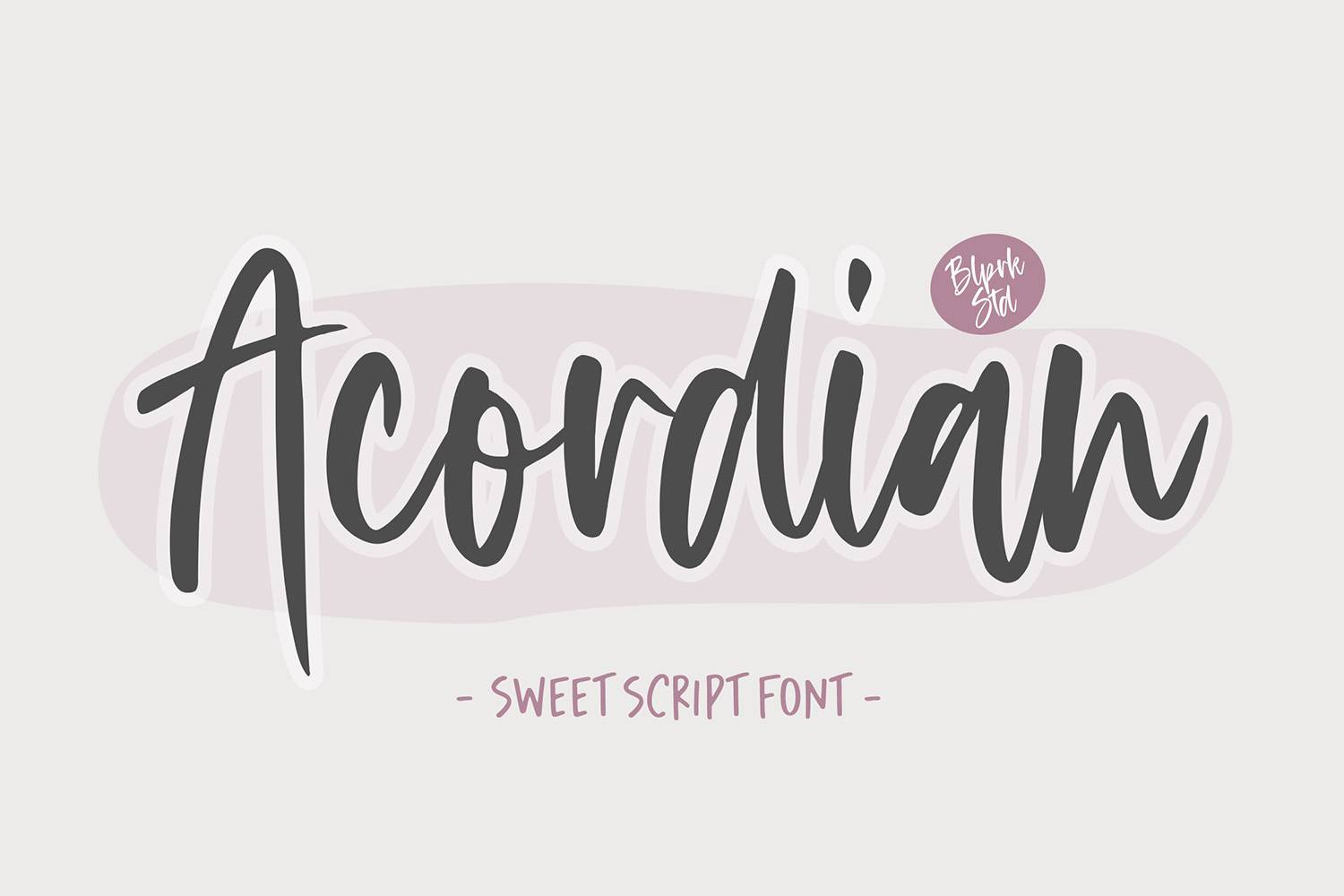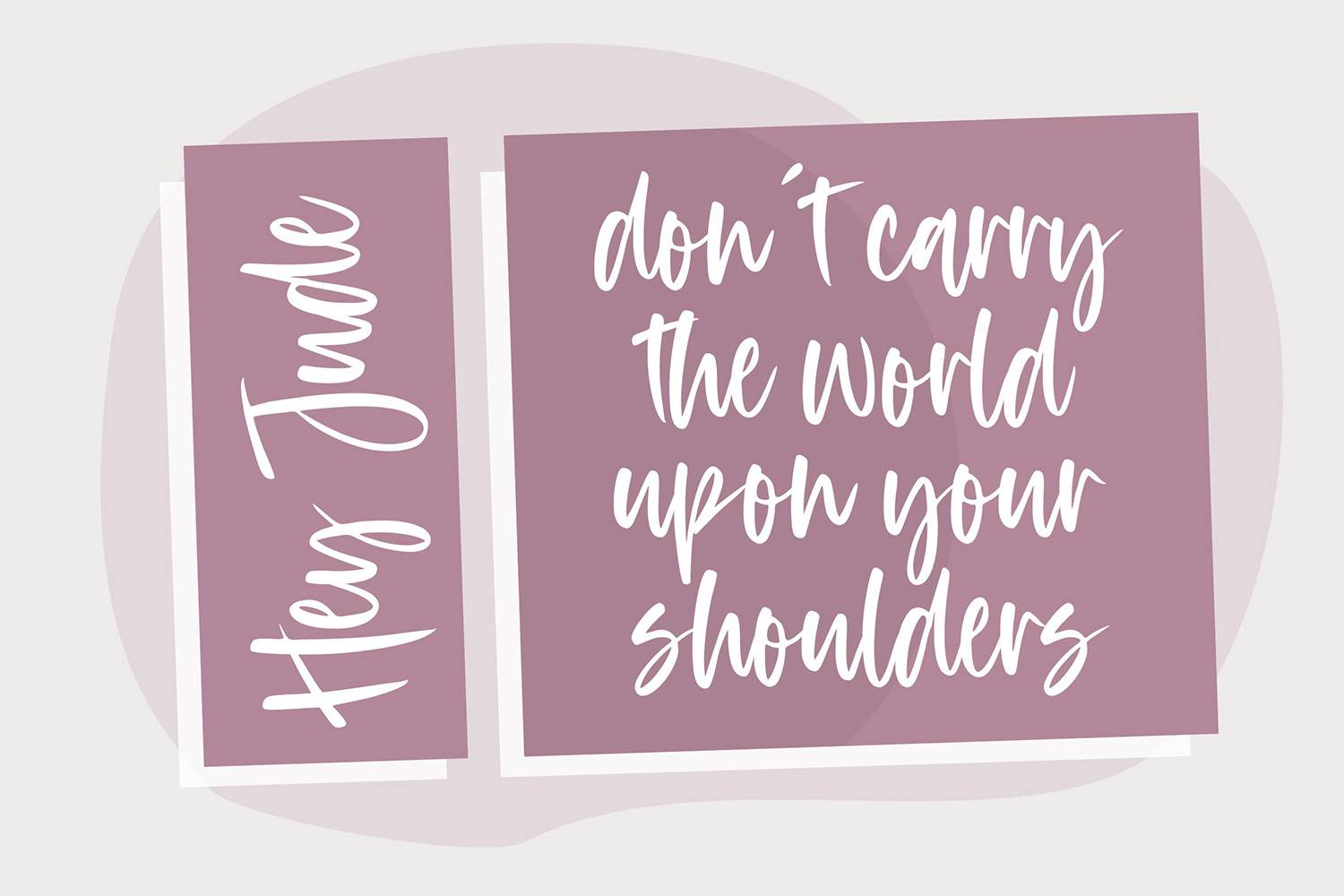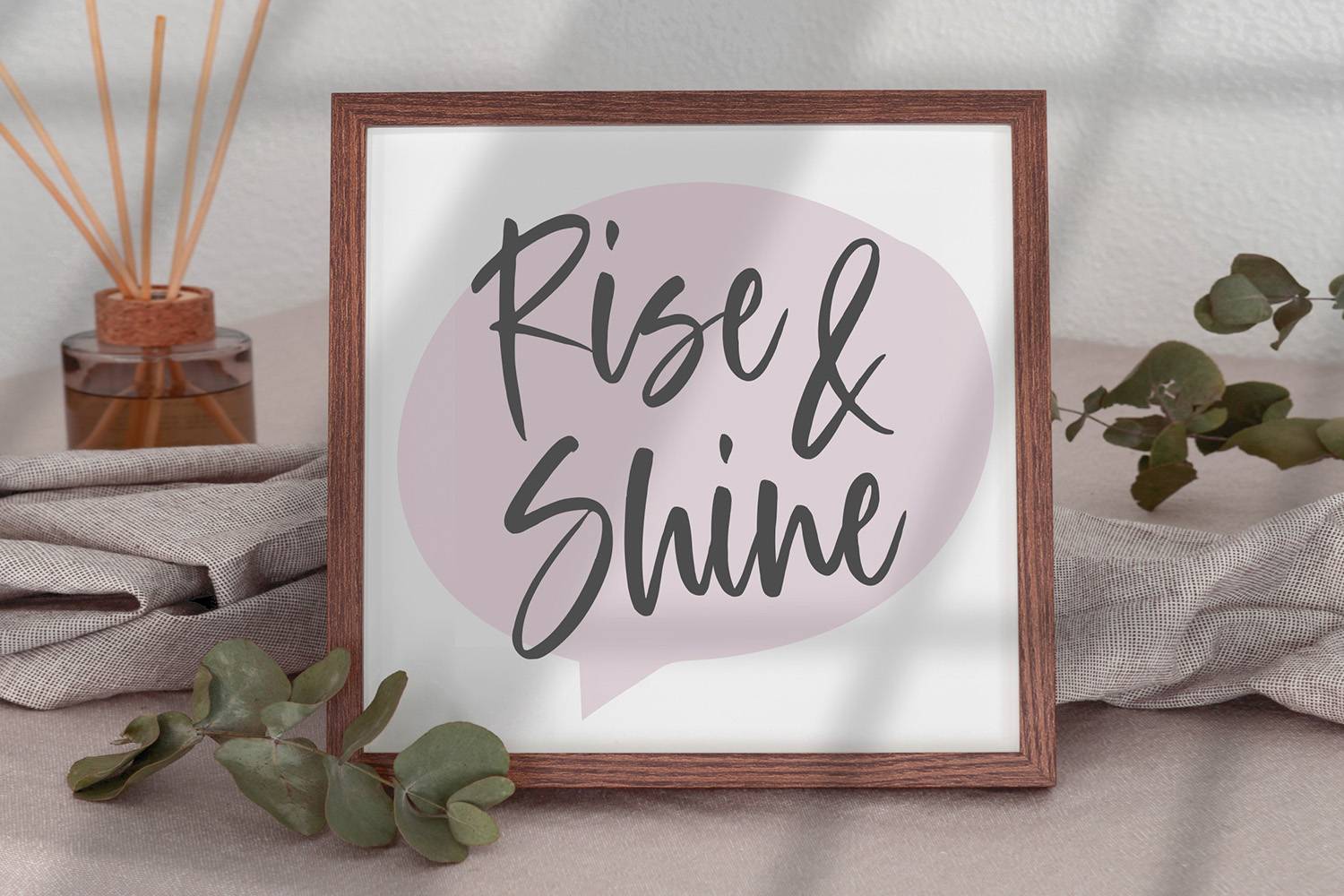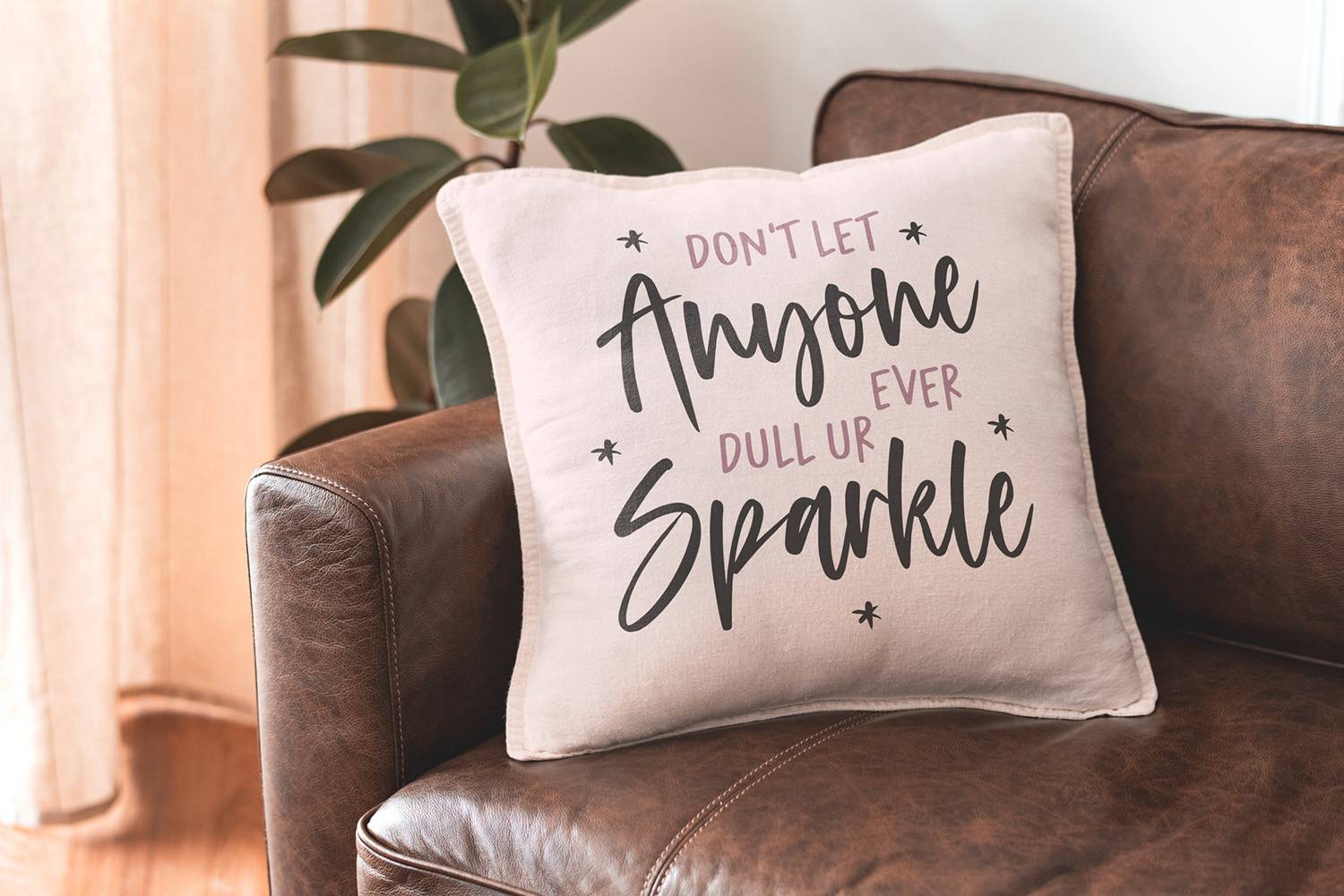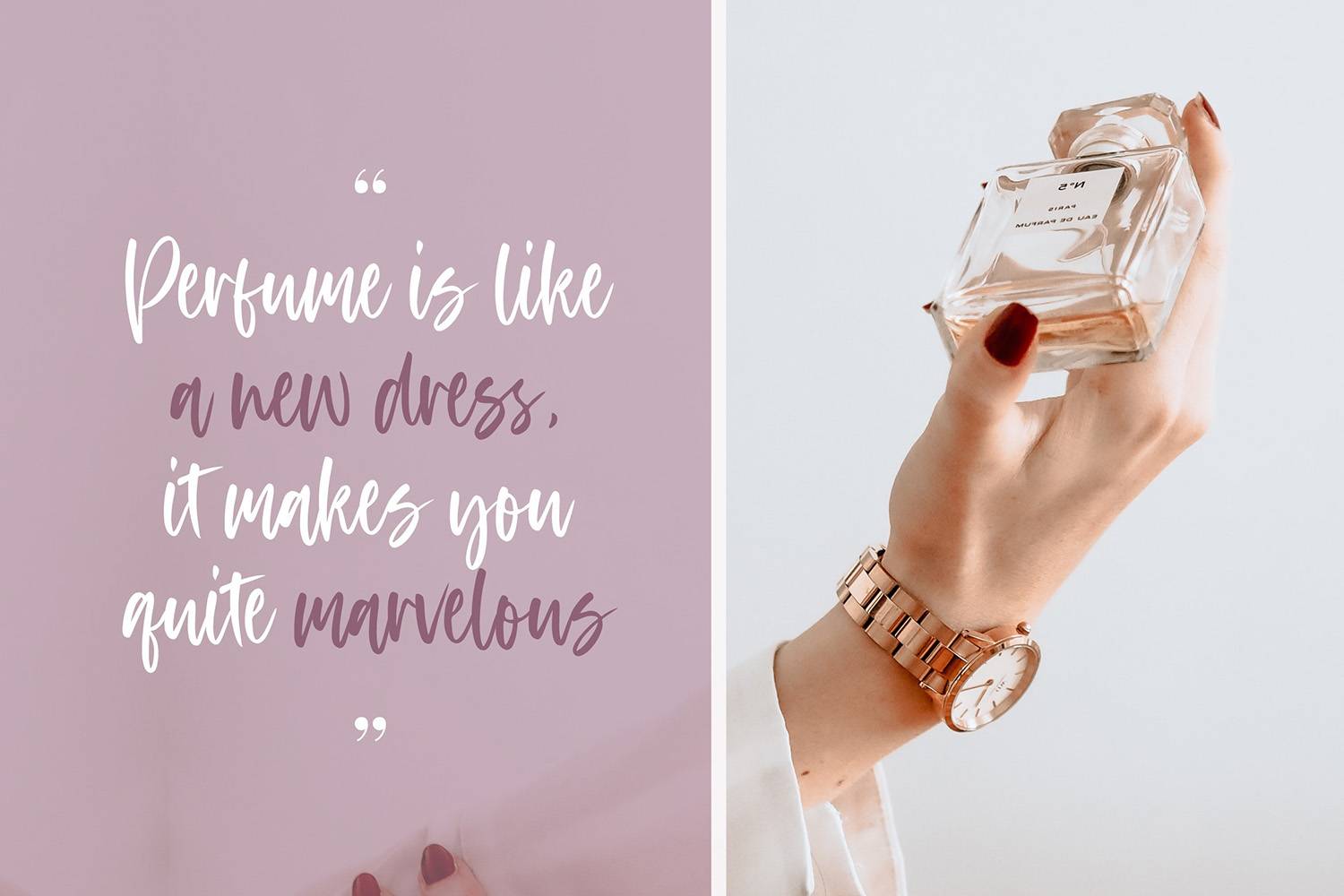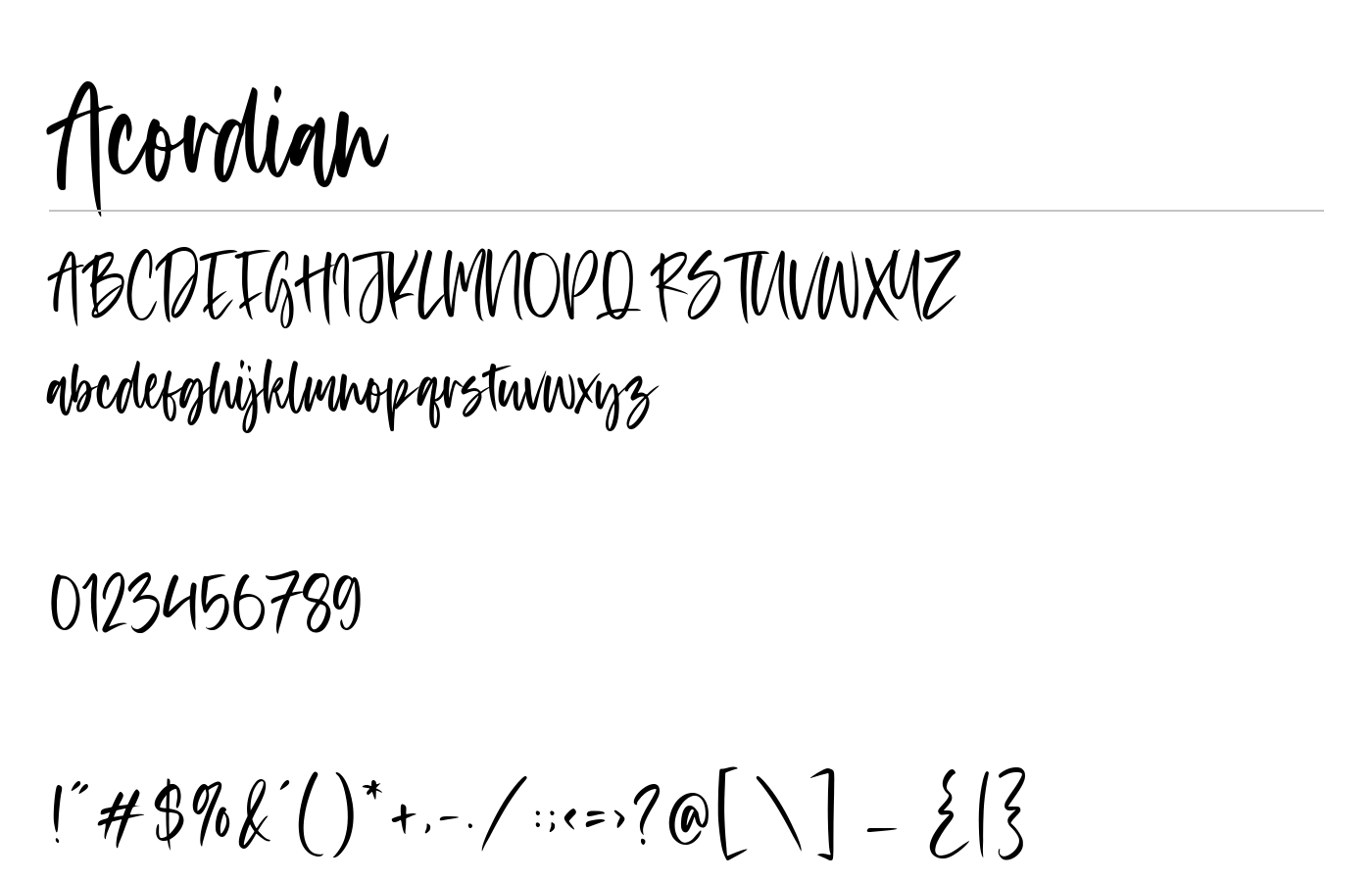
Acordian is a lively and casual handwritten script font with a modern, playful vibe. Its irregular strokes and natural flow give it a personal, approachable feel, making it perfect for creative projects, branding, and informal communication. This font works well for logos, invitations, and social media where a friendly and expressive touch is desired.
Acordian Font
About Acordian Font